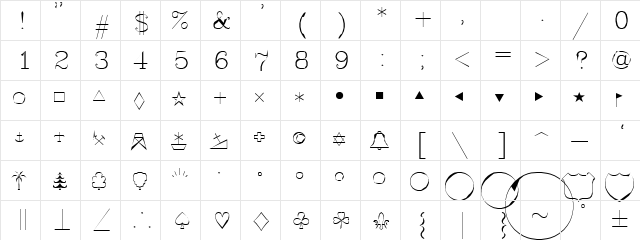
Symap Regular Font Preview
Symap Regular
Symap Regular Font Details
Design Context for Symap Typeface
Symap offers clean, dependable letterforms without strong stylistic allegiance, making it a practical choice for designers who need flexibility.